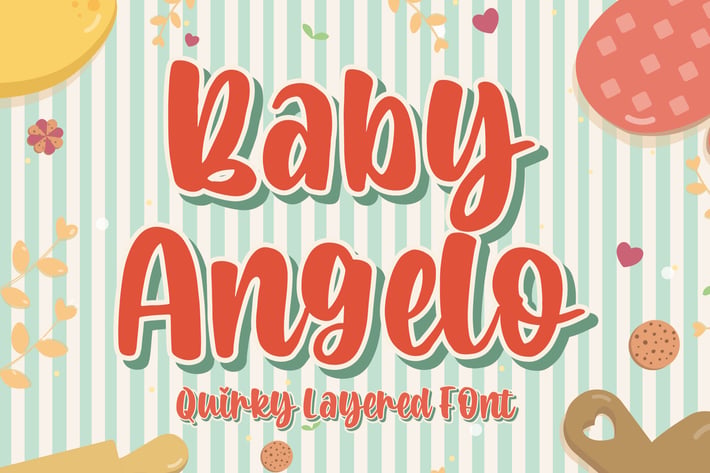
Baby Angelo - Quirky Layered Font
Introducing of our new product the name is Baby Angelo a Quirky Layered Font. Baby Angelo inspired by modern calligraphy this font is a fun theme very good for kids, comic, food logo, food menu, wedding invitation, logotype and etc